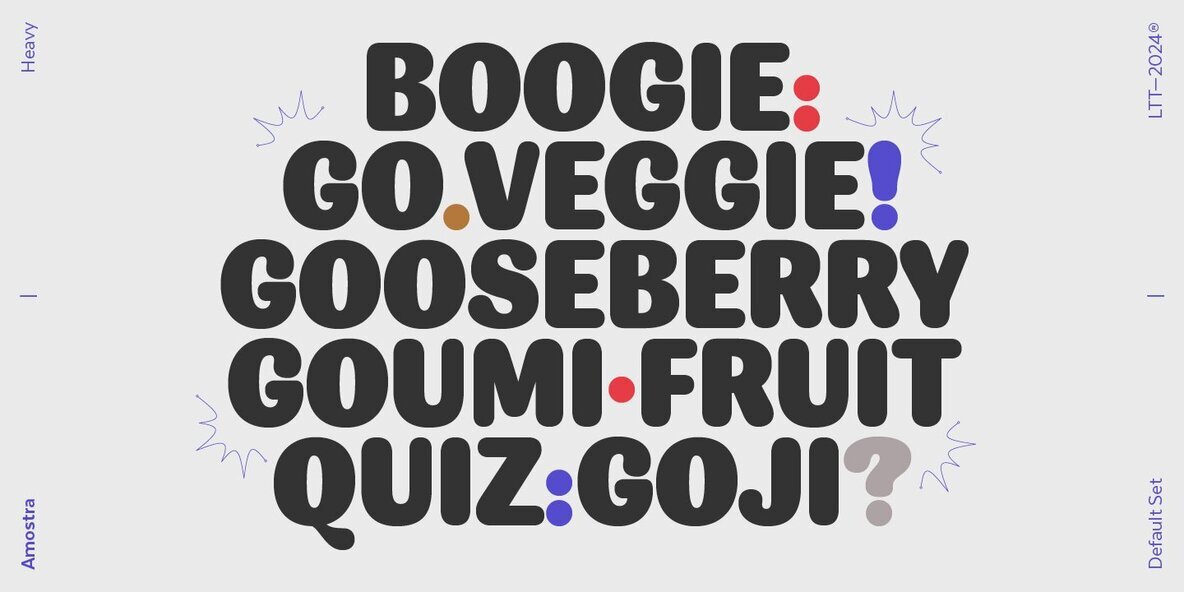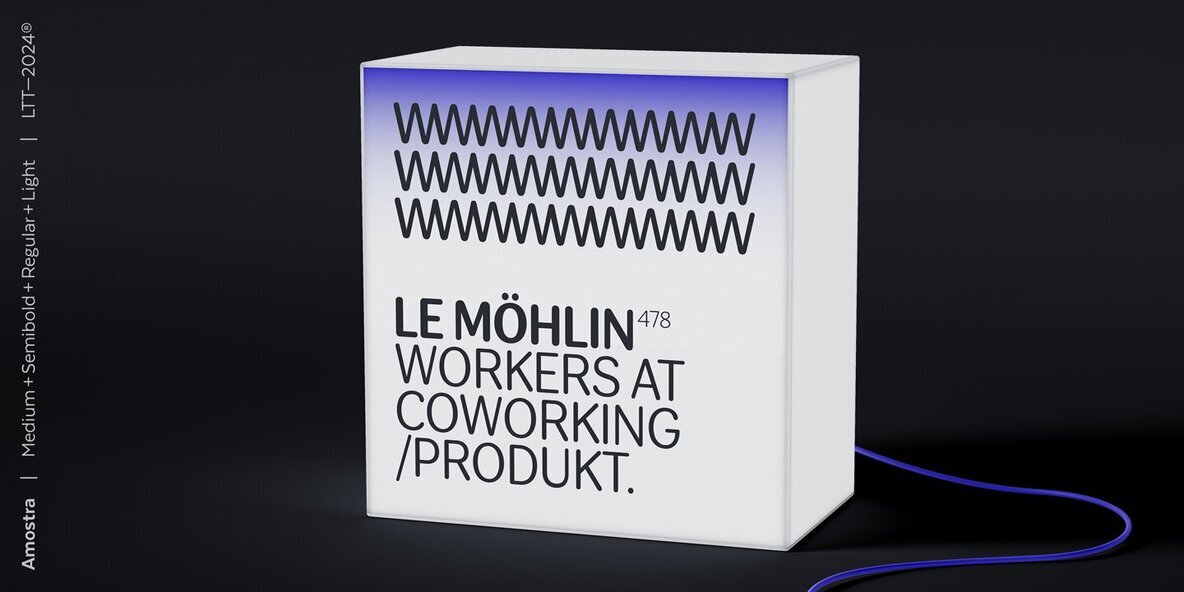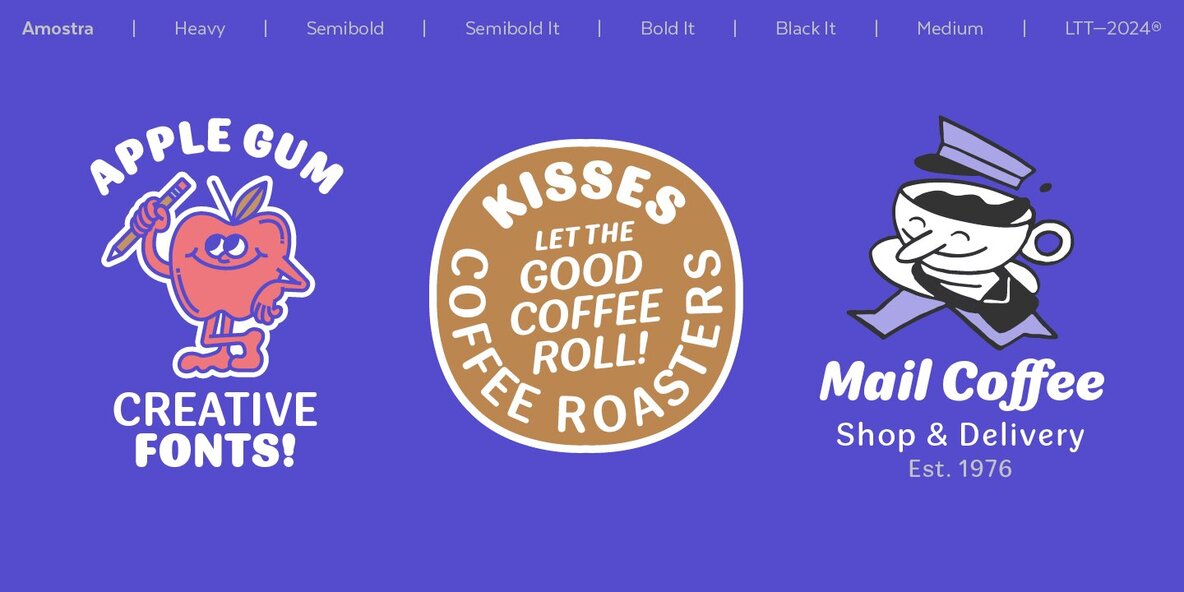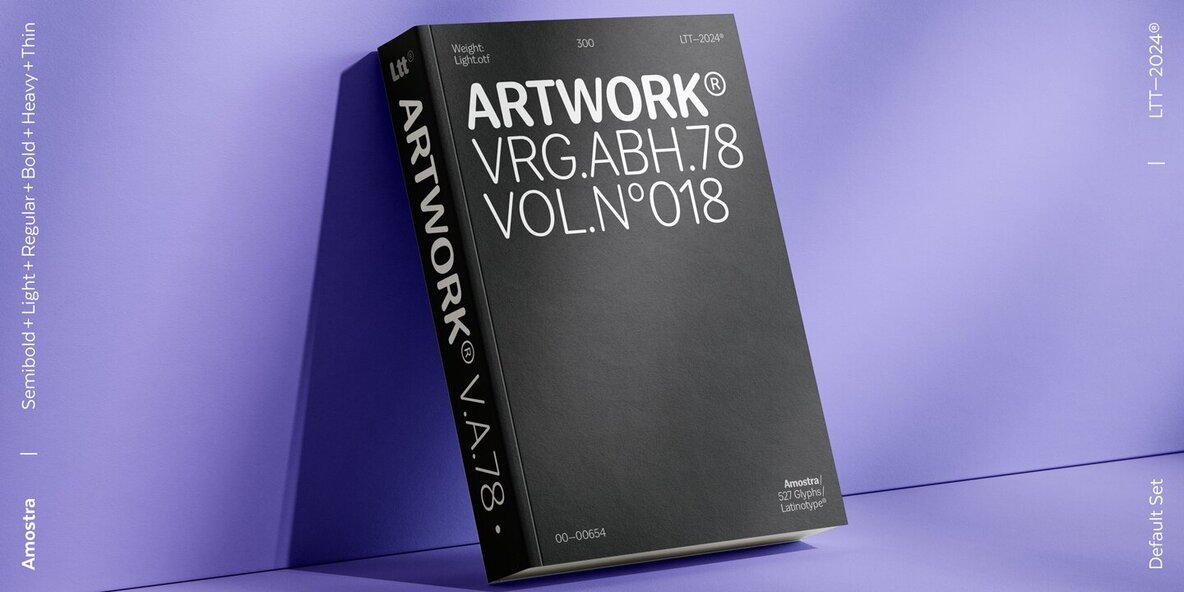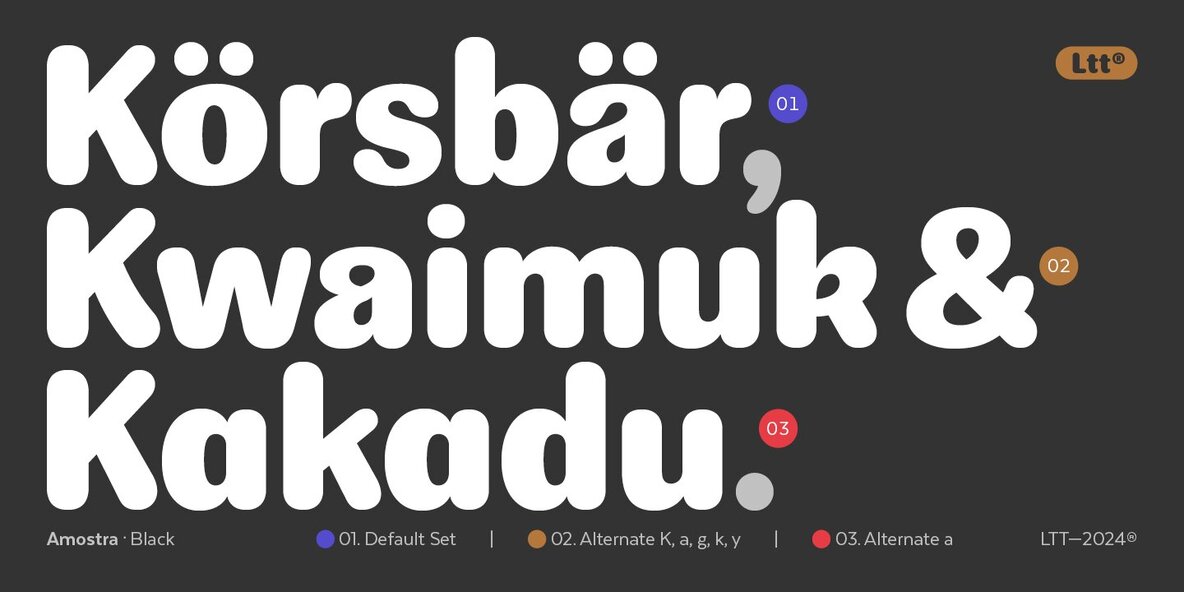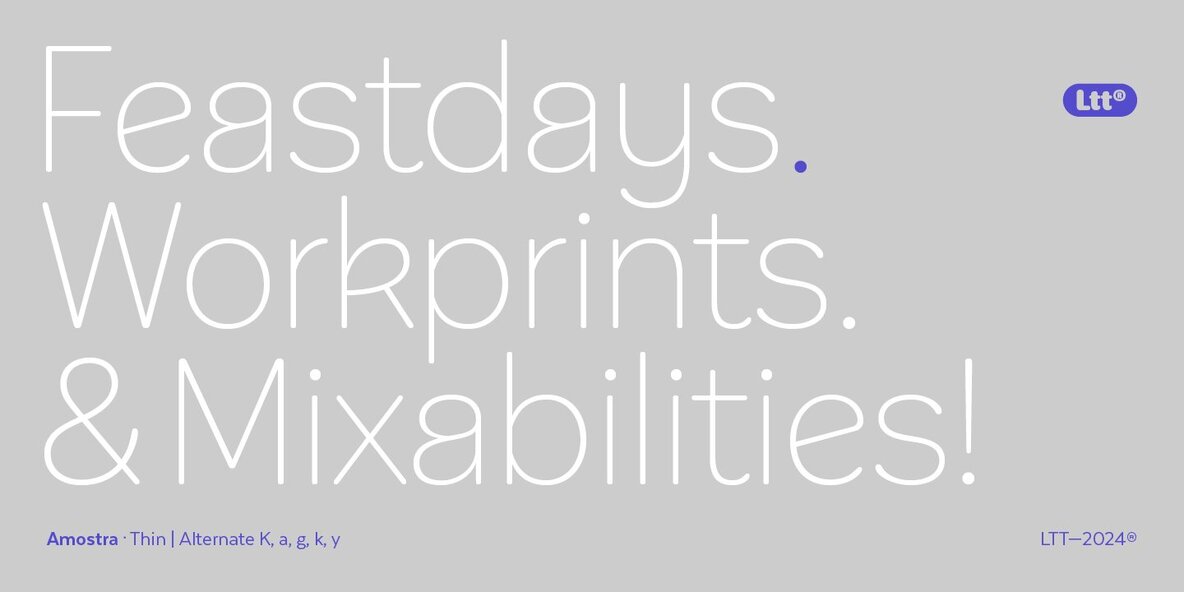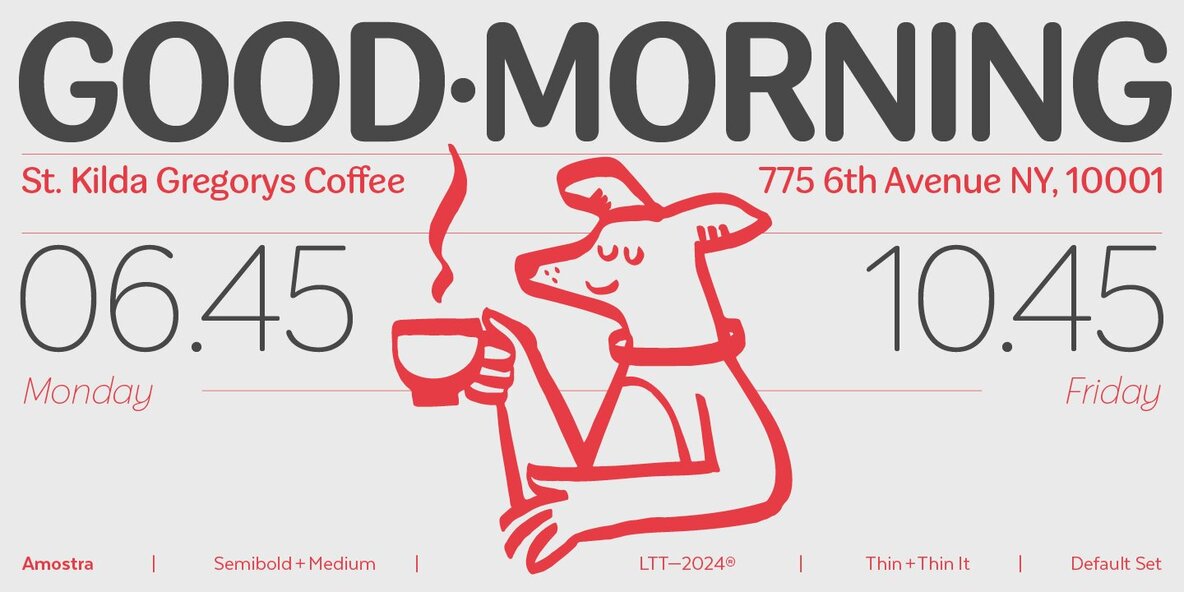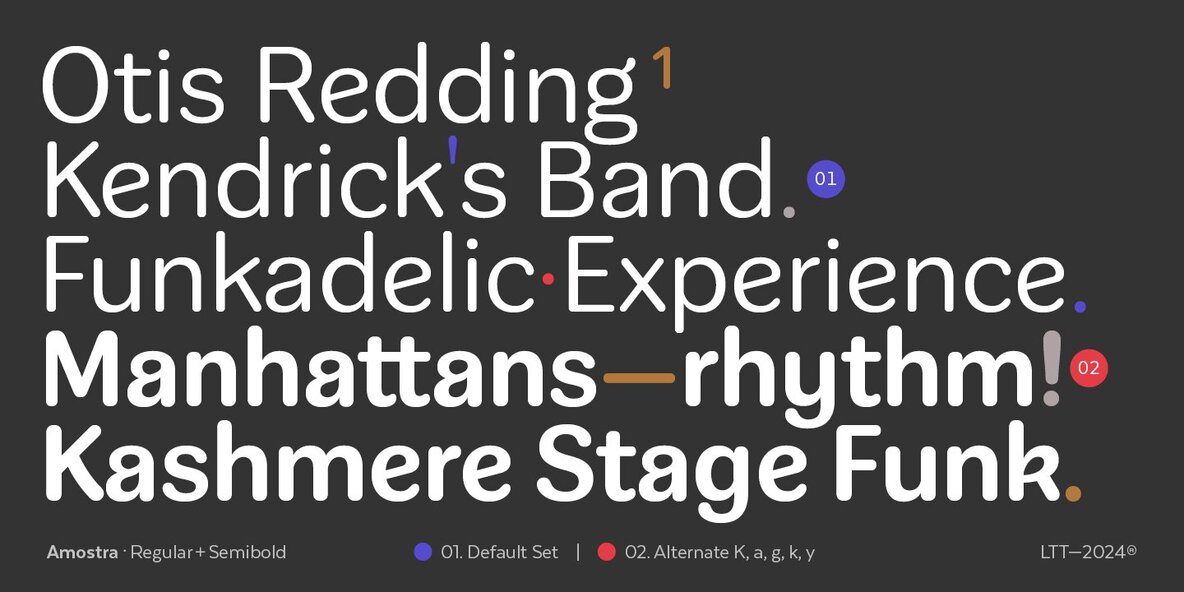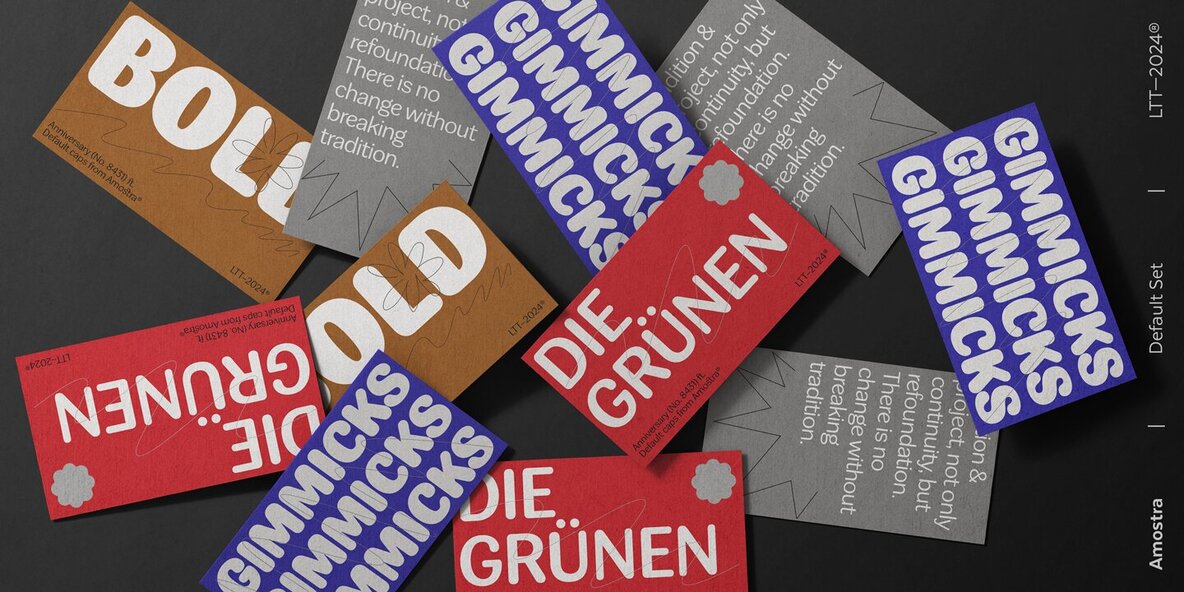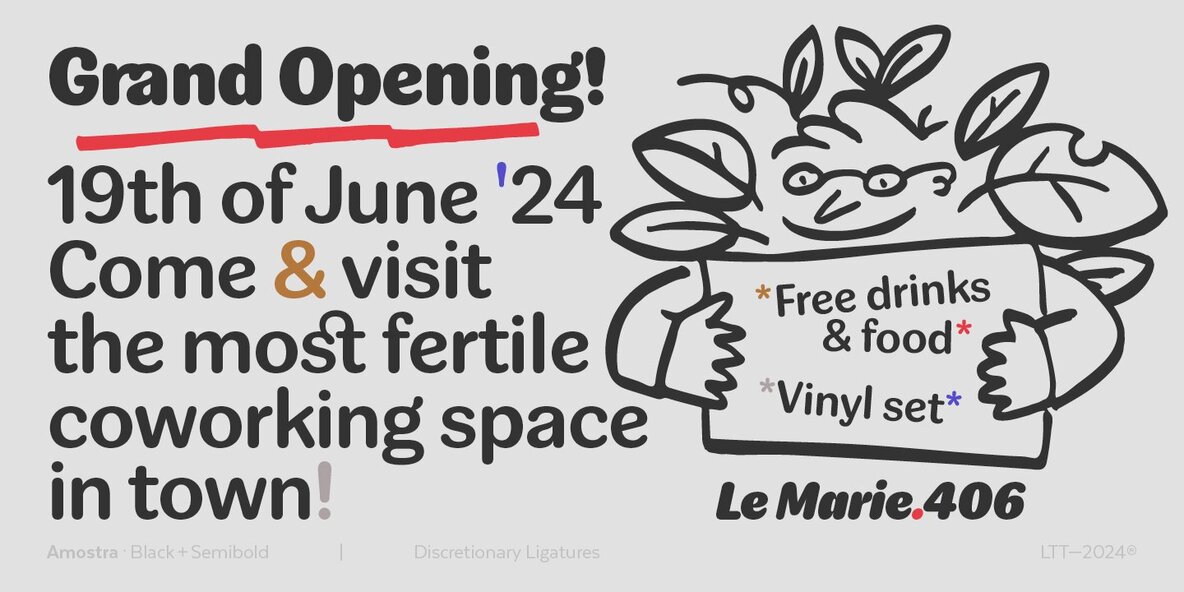
Amostra Font
Amostra by Latinotype (Luciano Vergara)
Amostra is a rounded sans-serif font notable for its dynamic contrast in weight. With 9 different weight options, each accompanied by their respective italic versions, Amostra offers a comprehensive set that supports varied typographic needs. The font's distinctive droplet endings contribute to its unique appearance, making it perfect for projects with complex hierarchies.
Additionally, Amostra includes stylistic alternatives and ligatures, broadening its design possibilities. This versatility makes Amostra an exceptional choice for branding, packaging, editorial design, logos, and various other design projects.